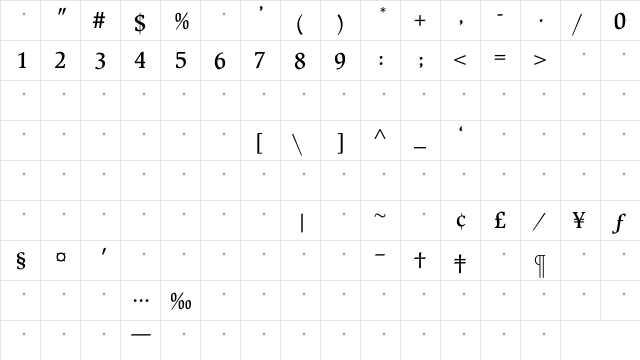
BeckenhamMediumTab Regular Font Preview
BeckenhamMediumTab Regular
Design Context for BeckenhamMediumTab Typeface
BeckenhamMediumTab takes a measured approach to typography — its balanced proportions and neutral character make it a reliable workhorse for both digital and print work.
Pro Tip: Pair BeckenhamMediumTab with a font of contrasting weight or personality to build a more expressive typographic hierarchy.